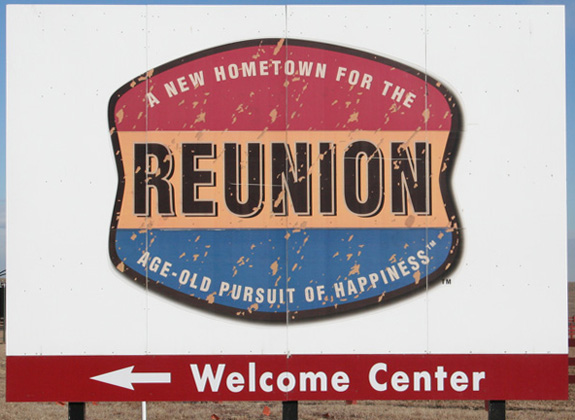
A different kind of lettering
Found this on a blog recently, and found this interesting:
someone finding their niche in the art of hand lettering
I love the creative signs they're producing and the music that goes with the video. The niche they've found is likely another fallout from the scarcity of unique, well made, hand lettered, hand crafted ANYTHING. He refers to what they do as "fictional nostalgia". Looks like they do a superb job of it.
I sometimes drive by a housing development called "Reunion". The billboards display their logo as a profile similar to a state highway sign - digitally aged and bullet hole ridden with the alluring tagline, "A New Hometown for the Age Old Pursuit of Happiness". The community center has the look of a huge red barn. It's a manufactured throwback to days gone by - fictional nostalgia.
Contrived "nostalgia"
In my humble estimation, the housing development falls short. It's a bit too contrived. But they've hit on something people are longing for. Sideshow Signs seems to be nailing it. Kudos to them.
"Fictional Nostalgia"...another thing I'm good at, but pays nothing.
Nice fine Danny, great to see someone finding thier happy place...And I too believe people are looking for that handcrafted appeal, and whether they know it or not, it's the good layouts and executed signs that stand out in the digital world of today...We certainly have found that here, and it's working for us...Pat
Great little find....these short film makers are doing SO well.